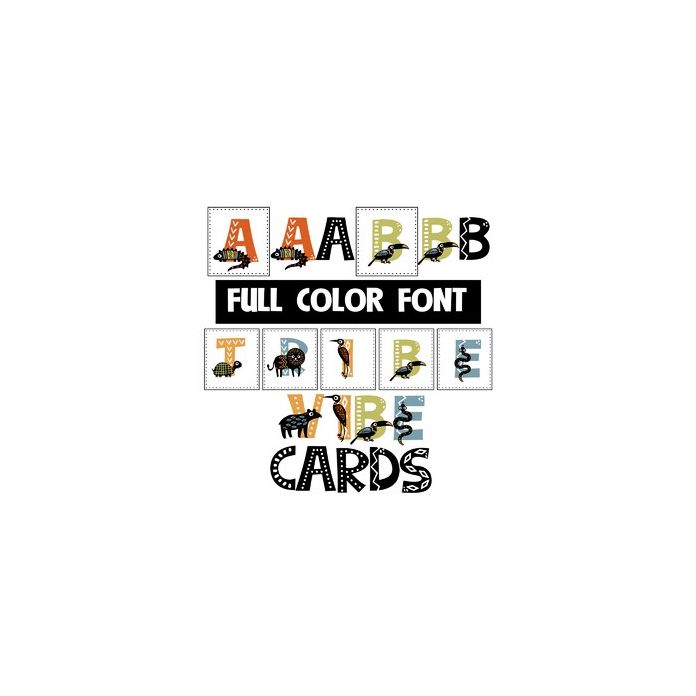
This full-color font has an uppercase of wild, tribal-like animal designs on cards. The lowercase is without cards. An alt case is available in black and white.